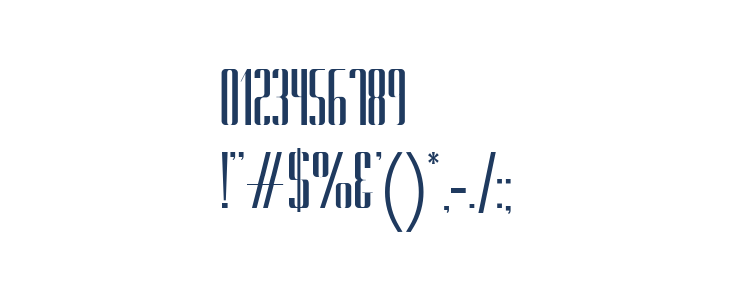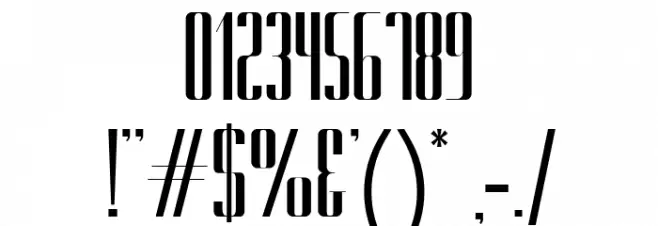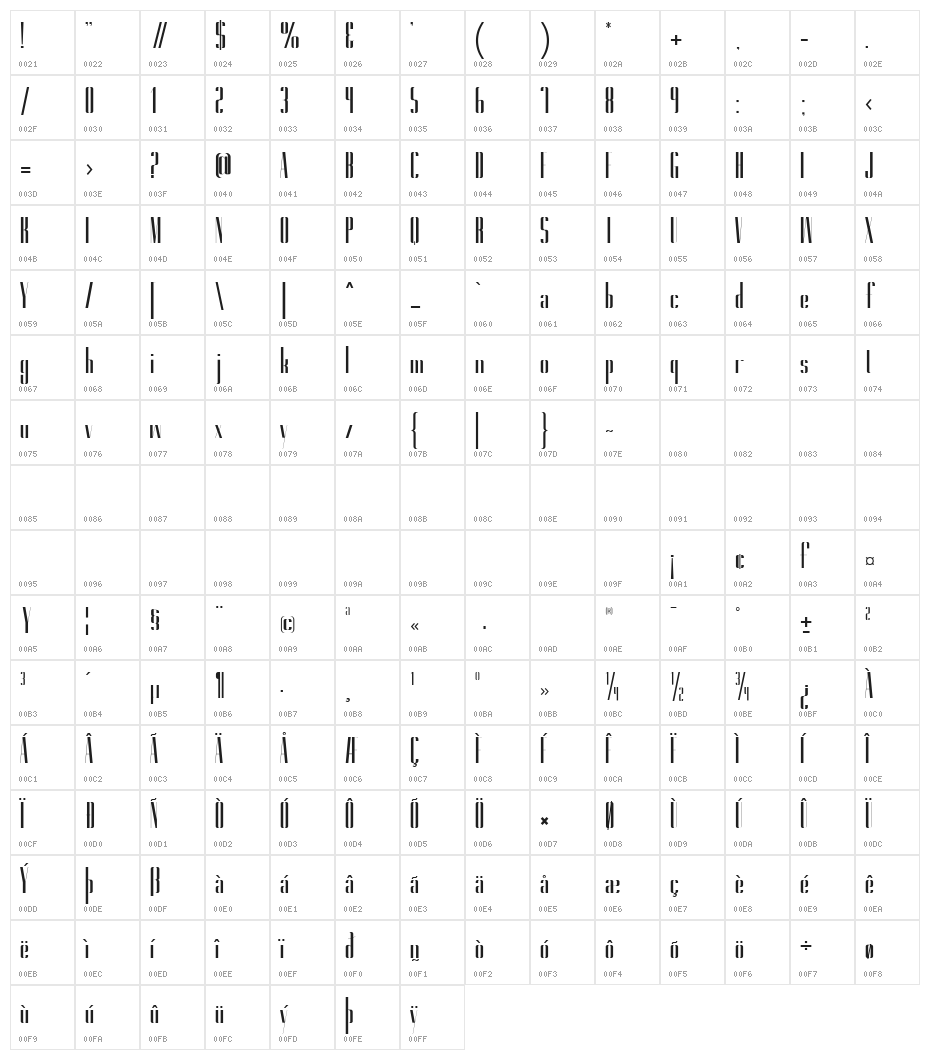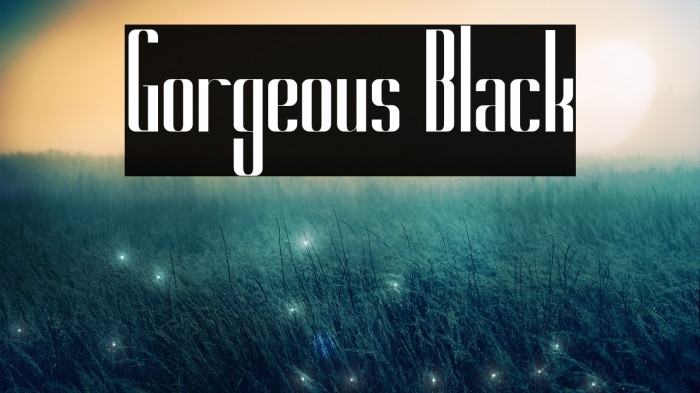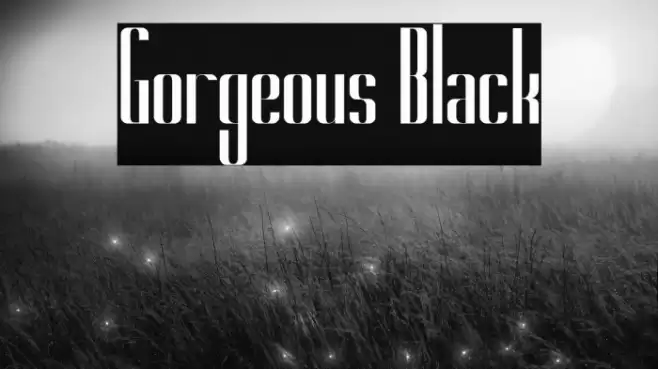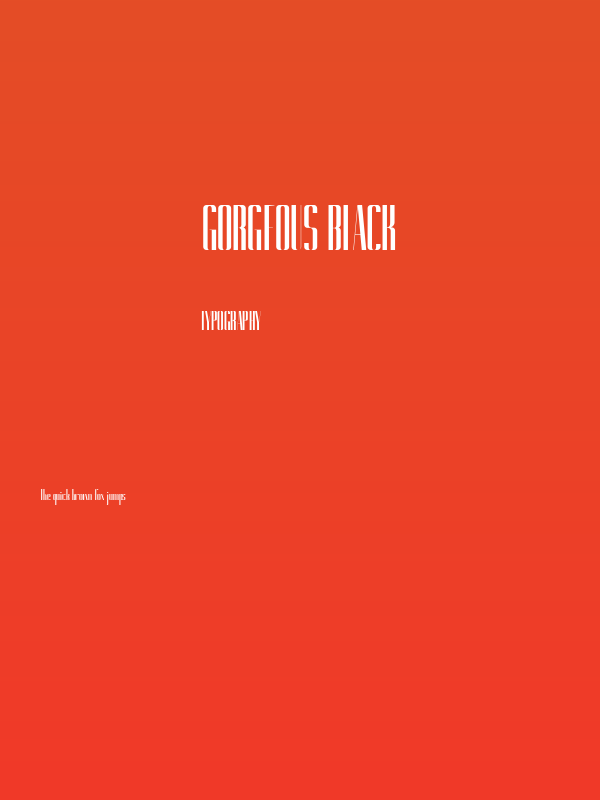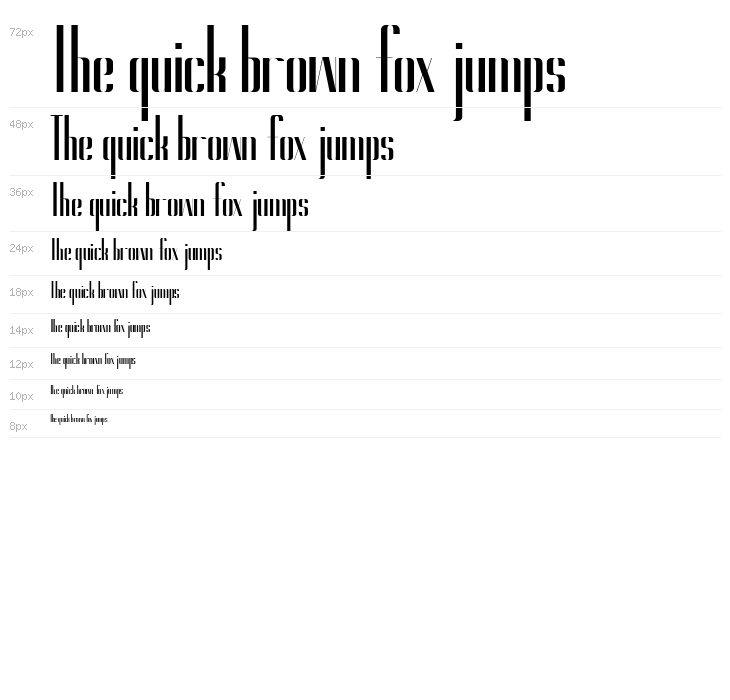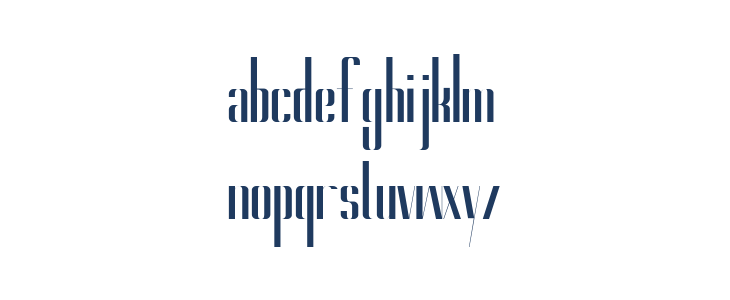
Gorgeous Black Font
Gorgeous Black Description
This font features a striking and bold design with tall, narrow characters that exude a sense of modern elegance. The uppercase letters are particularly elongated, giving them a dramatic and impactful appearance. The lowercase letters maintain a consistent style, with clean lines and a slight contrast in stroke thickness that adds to the overall sophistication. The numerals are distinct and easily readable, while the special characters complement the font's sleek aesthetic. This typeface is perfect for making a bold statement in any design project.